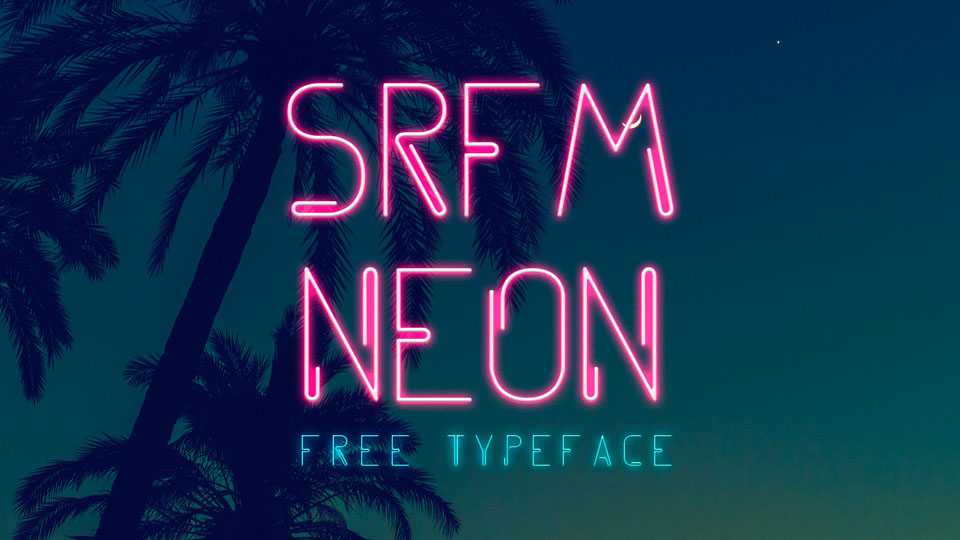
Download SRFM Neon font, an outline display typeface that looks like neon lights. Great for signage design, posters, banners, creative headlines and other display purposes.
Designer: S r f m